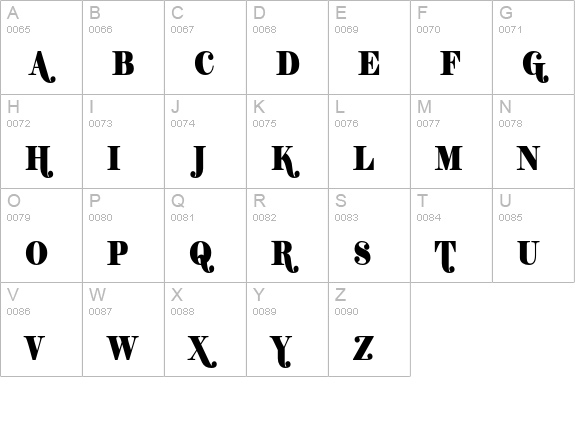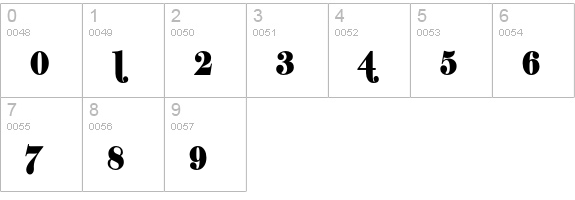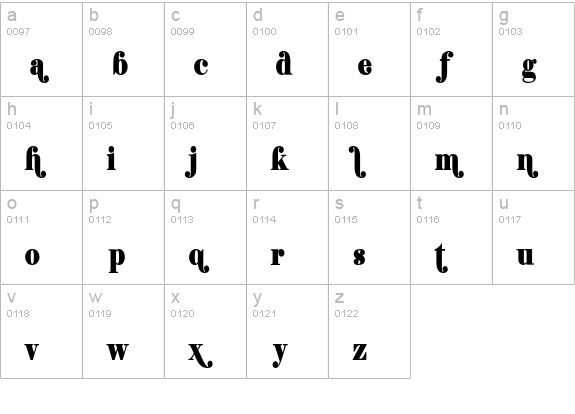
ShiftyChica Font Details
ShiftyChica font is a unique and captivating typeface that effortlessly combines boldness with elegance. Its sleek and modern design is perfect for adding a touch of sophistication to any project. The letters of ShiftyChica font are meticulously crafted, with subtle shifts and curves that give it a dynamic and playful appearance. This font is not only visually appealing, but it also offers versatility in its usage. Whether you're designing a logo, creating a poster, or crafting a website, ShiftyChica font will make your text stand out and leave a lasting impression on your audience. One of the best things about ShiftyChica font is that it is available for free. You can easily download it at FontsMarket.com, a trusted source for high-quality fonts. By offering this font for free, the creators of ShiftyChica font aim to make it accessible to a wide range of designers and creatives, ensuring that everyone can enjoy its beauty and functionality. With ShiftyChica font, you have the freedom to explore your creativity and bring your ideas to life. Its bold and captivating nature will add a touch of excitement and energy to your designs, making them truly unforgettable. So why wait? Download ShiftyChica font today and let your imagination run wild.